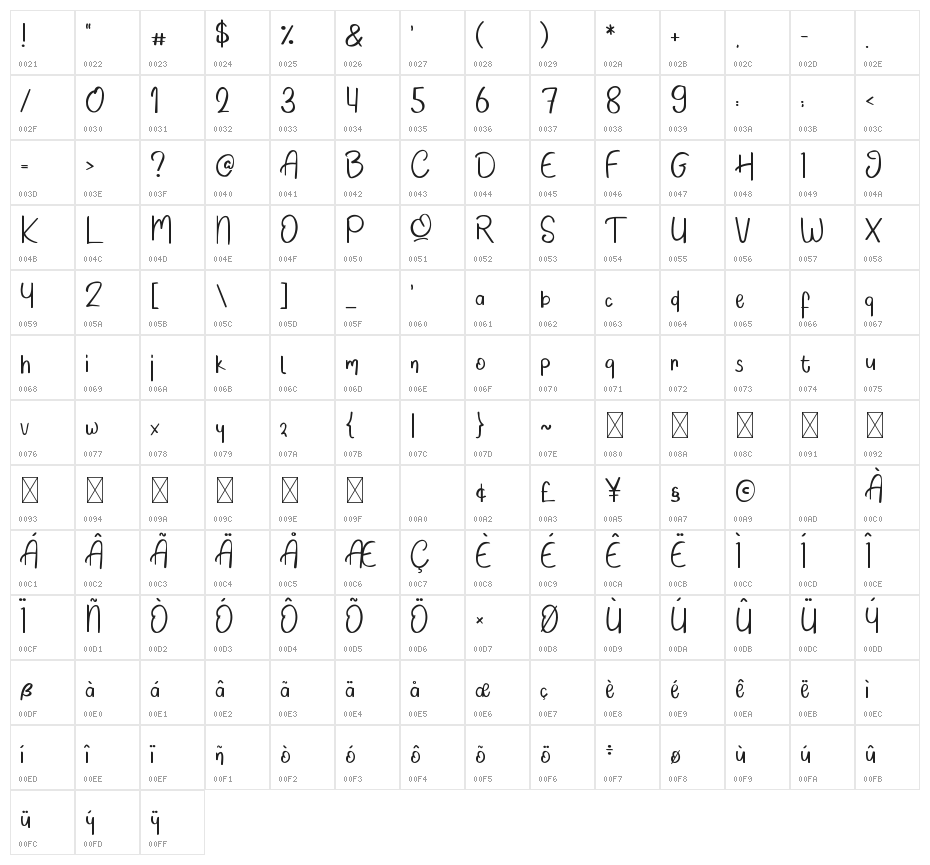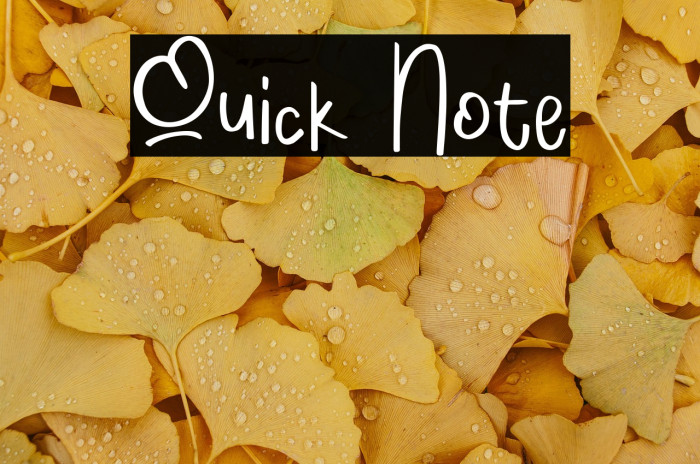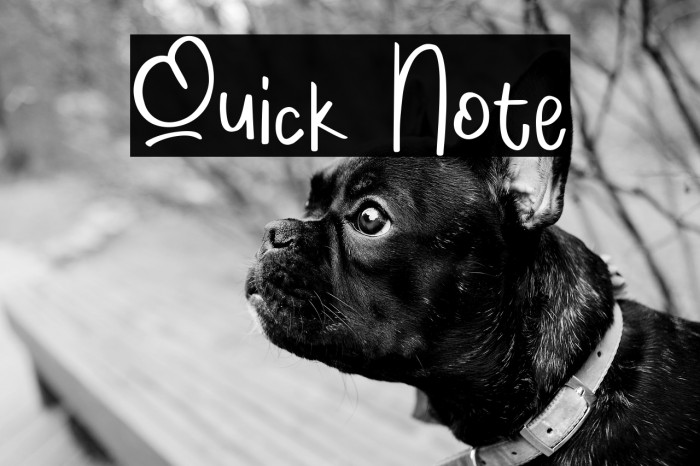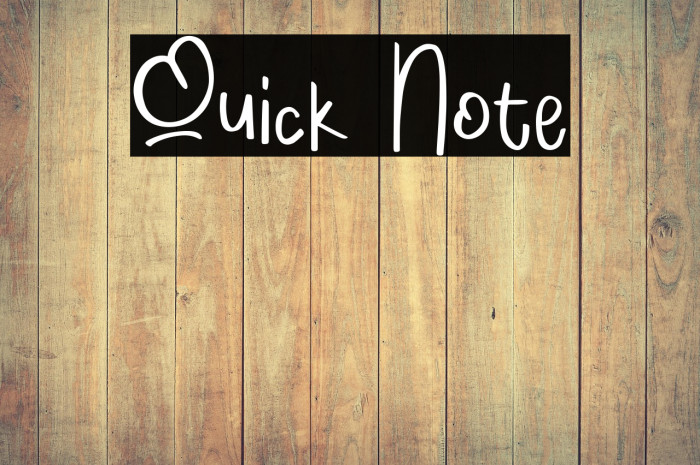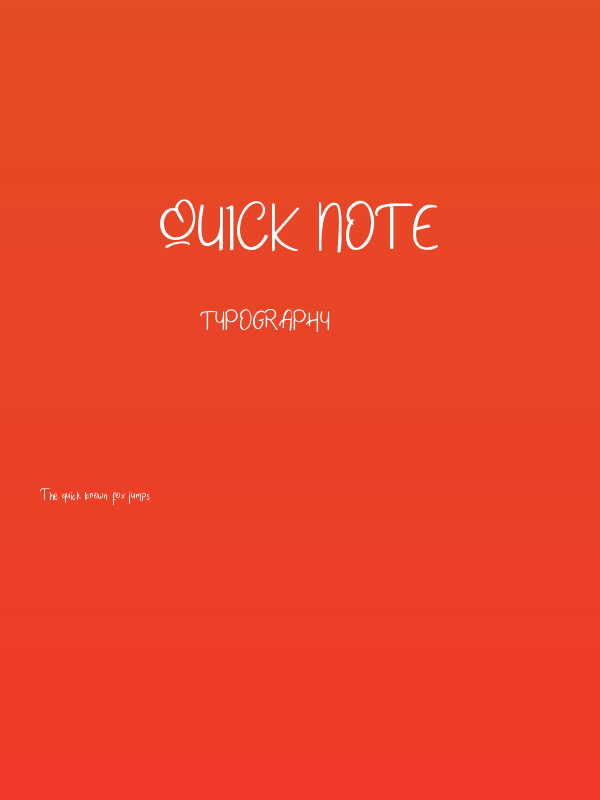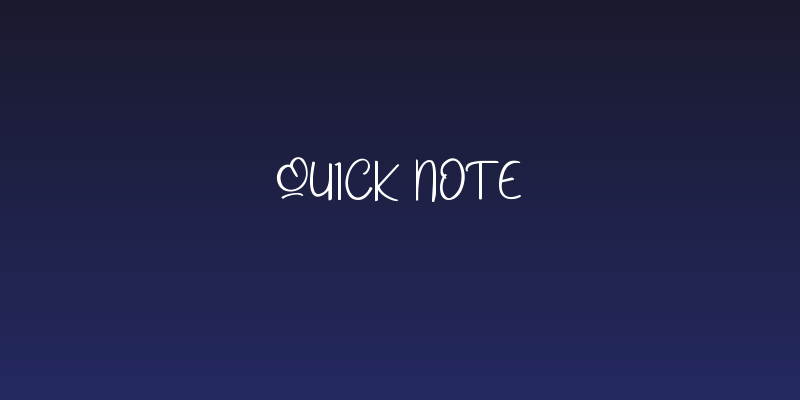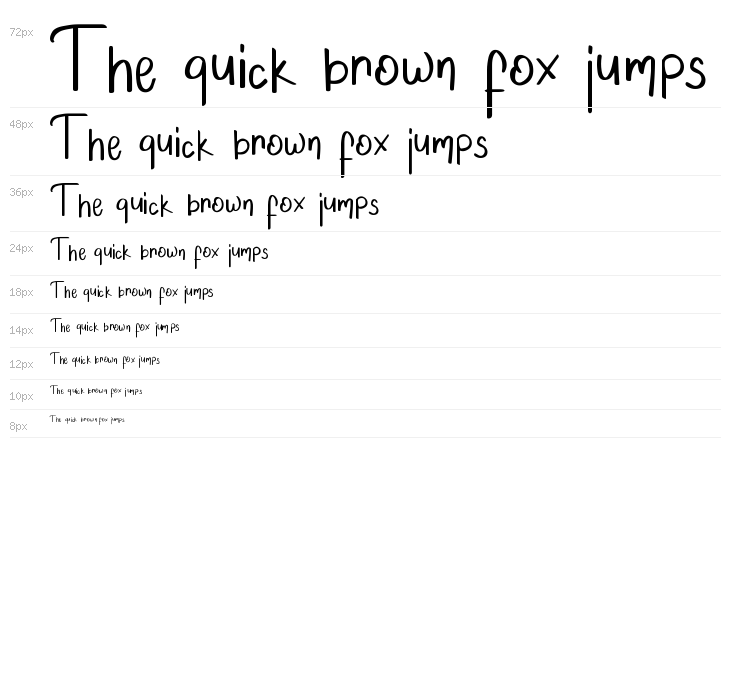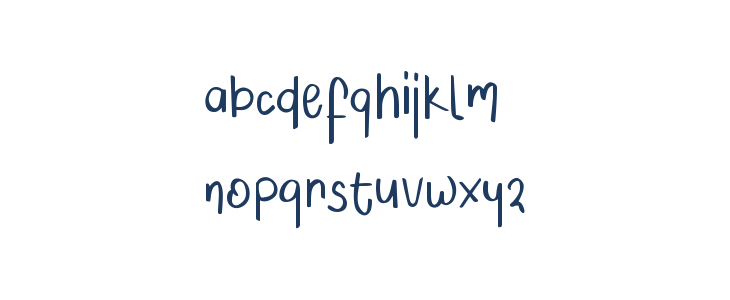
Quick Note Font
Quick Note Description
This playful and whimsical font features a handwritten style with a casual and friendly appearance. The characters are slightly elongated with a consistent stroke width, giving it a uniform look. The uppercase letters have a unique flair with some letters having loops and curves that add to its charm. The lowercase letters maintain a similar style, ensuring readability while retaining the playful essence. Numbers and special characters are designed to match the overall aesthetic, making it versatile for various uses. The font's informal style makes it ideal for projects that require a personal touch.
| Use Case | Headlines, Informal text, Branding |
| Proposed Projects | Ideal for greeting cards, children's books, casual invitations, and playful branding. |